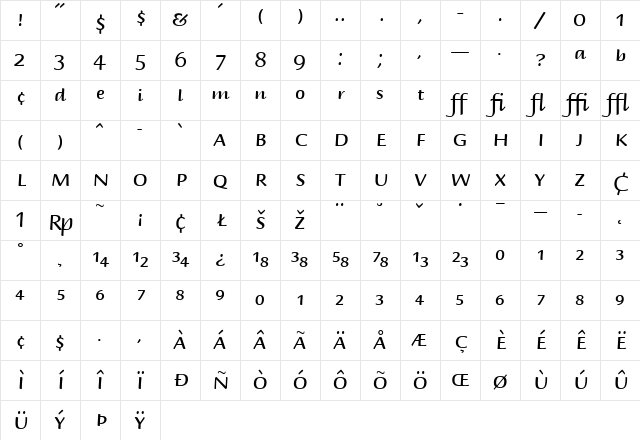
Complete Briem Script MM Regular glyph index. Displaying only characters natively supported by Briem Script MM Regular font.
Briem Script MM flows with the natural rhythm of handwritten lettering, making it ideal for designs that call for warmth and personal expression.
Font Pairing: Combine Briem Script MM with a simple geometric sans for maximum contrast - the tension between flowing curves and clean structure is a classic typographic pairing.
Pro Tip: Use Briem Script MM for short runs of text - names, titles, or taglines. Extended body copy in script faces tires the eye quickly.